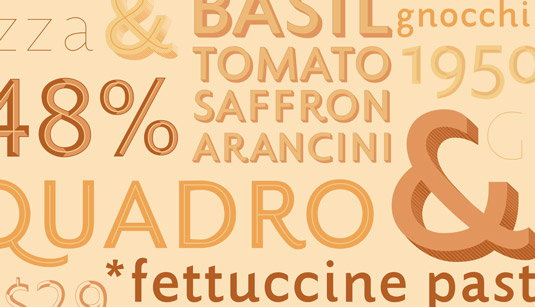
Font of the day: Strato
Every day we showcase the best fonts on the web. Today it's Strato by Sophie Elinor Brown.
Strato by Sophie Elinor Brown
Inspired by the many facets of the city of Rome, Strato was created by designer Sophie Elinor Brown. Available from Ten Dollar Fonts, the design is described as "a slightly humanist sans serif font, proportionally based off classical Roman inscriptions, but with a modern twist".